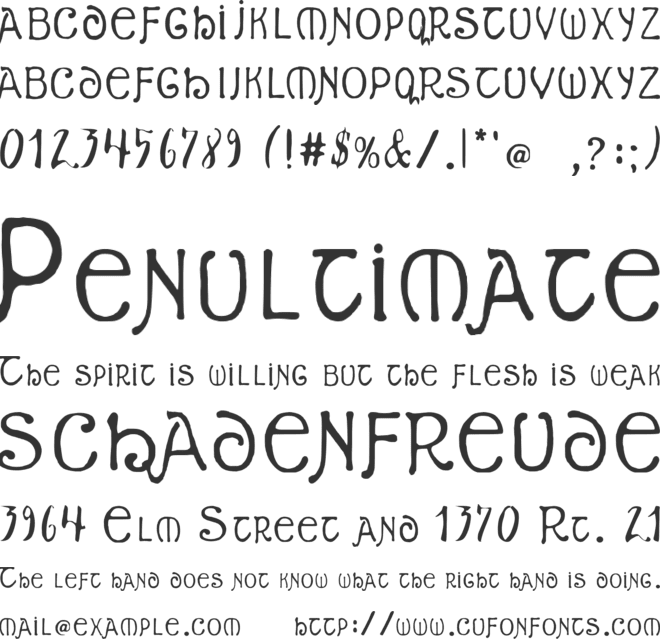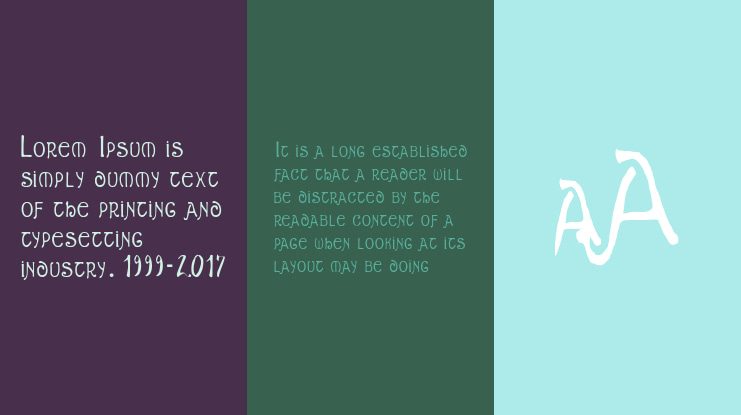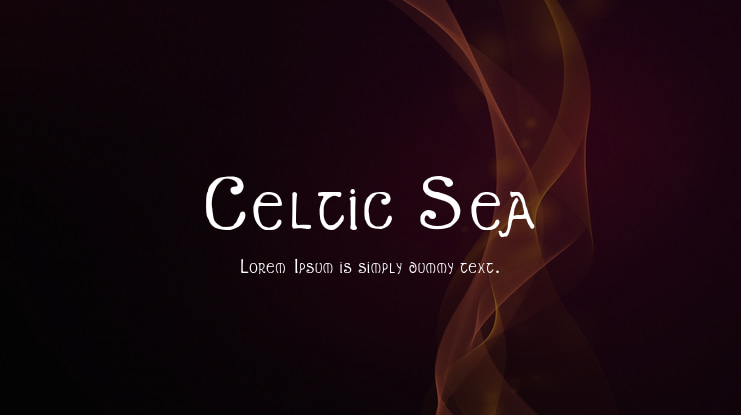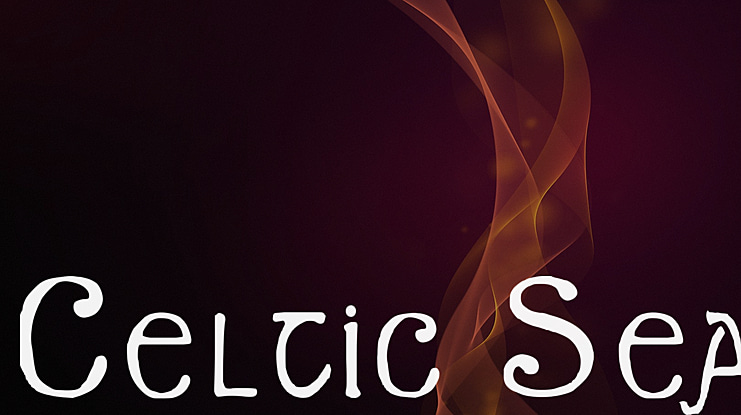
Celtic Sea Font
I found this great font on a title page of an old book called Songs of the Hebrides. I named it Celtic Sea because of the large number of songs about the sea, sea creatures, and mythical sea beings, such as kelpies and mermaids.